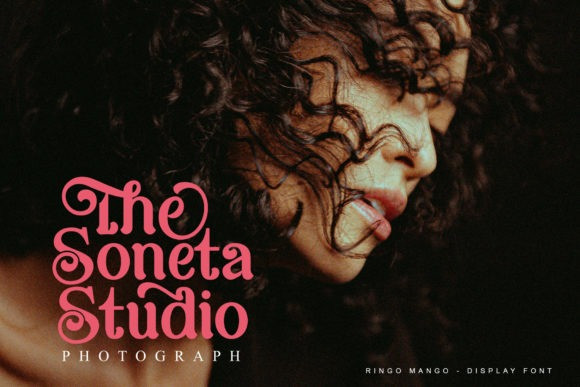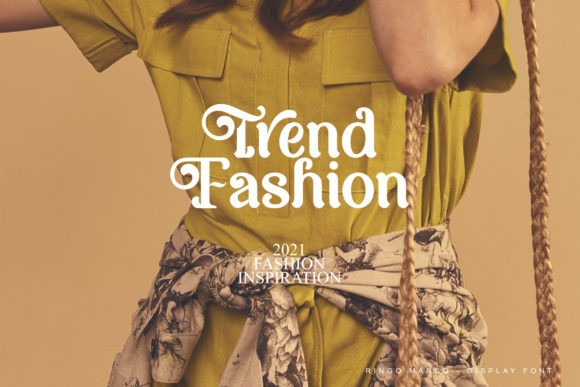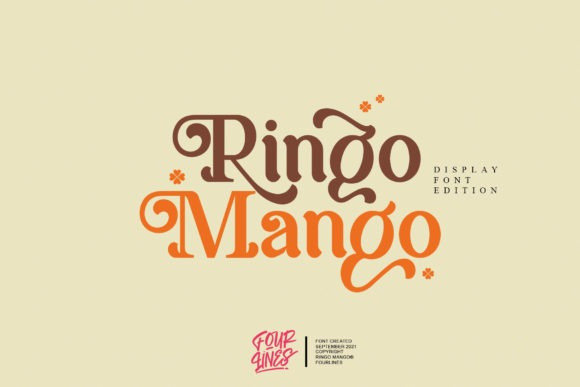
Ringo Mango Font
Ringo Mango Font is a chic and trendy looking display font. It is imposing and features uniquely shaped letters, and as a result, it will easily match a wide range of creations that require a distinct touch.